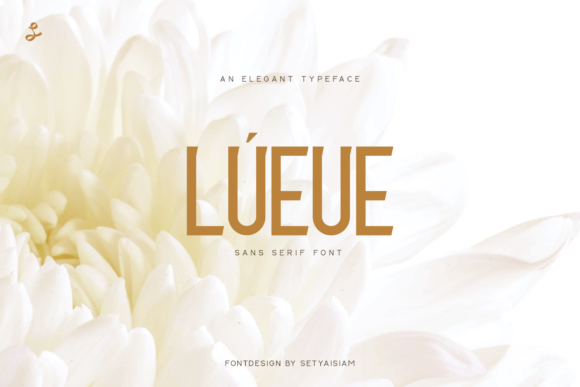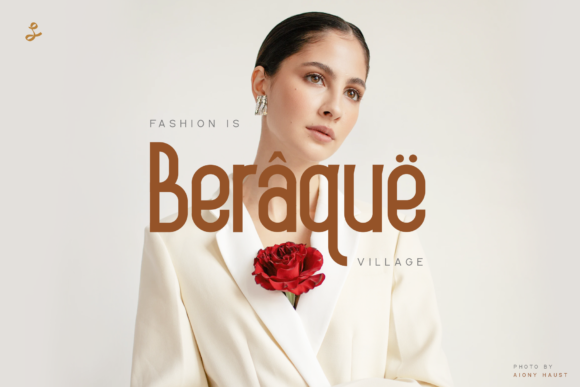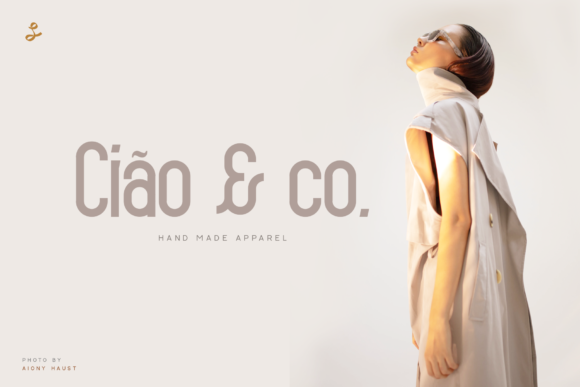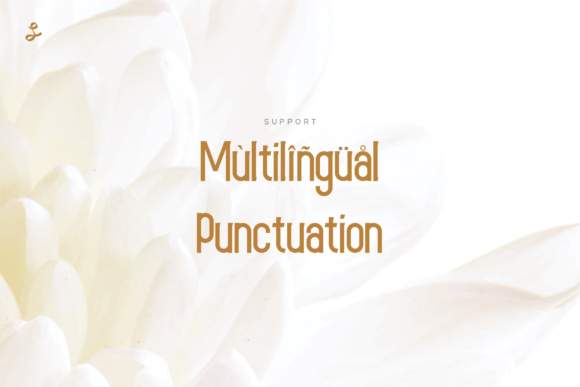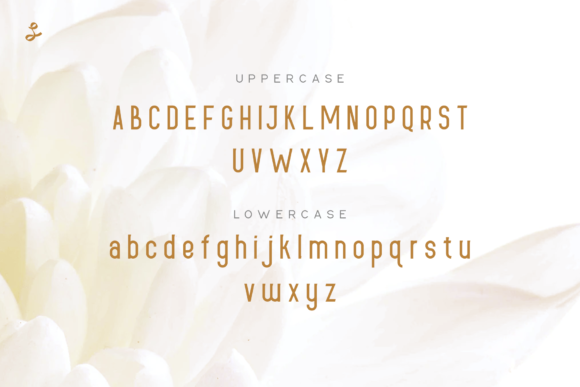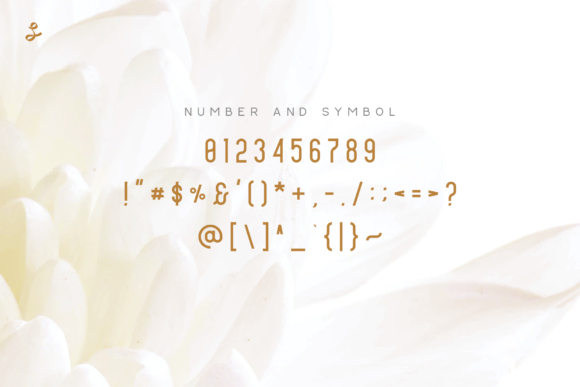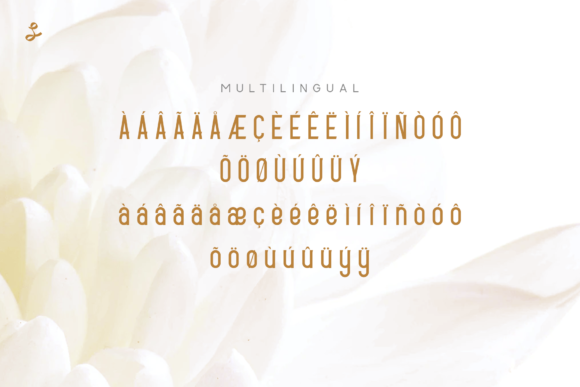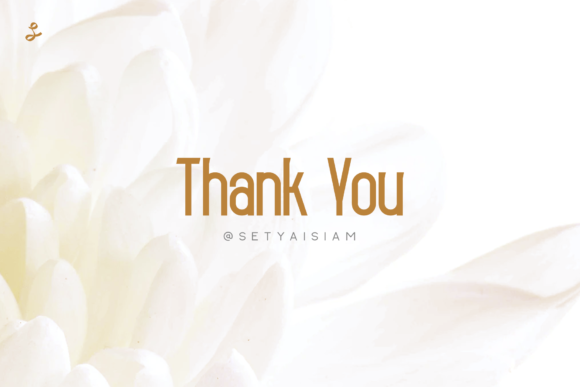
Lueue Font
About Lueue Font
Introducing “Lueue,” a minimal and neat handwritten font that exudes simplicity and elegance. With its clean and uncluttered style, “Lueue” is incredibly versatile, making it a perfect match for a vast array of projects. Add it to your creative ideas, and you’ll notice how it effortlessly elevates them to stand out with its understated beauty.
“Lueue” embraces a minimalistic design with carefully crafted letterforms that embody a sense of order and neatness. Its streamlined appearance gives your designs a polished and refined look, making it an ideal choice for various creative ventures.
Imagine using “Lueue” to create clean and sophisticated branding materials, minimalistic wedding invitations, or sleek social media graphics.
In branding and logo design, “Lueue” becomes a symbol of modernity and simplicity. Its versatility allows you to convey your brand’s essence in an elegant and clean manner.
When applied to wedding invitations, “Lueue” provides a contemporary and refined touch, setting the stage for a stylish celebration.
For social media graphics, “Lueue” adds a touch of sophistication without overwhelming the overall message, making your content both visually appealing and easy to read.
With its neat and minimalist appeal, “Lueue” becomes an essential tool for a broad range of projects.
In conclusion, “Lueue” is more than just a font; it’s a statement of elegance and simplicity. With its minimal and neat style, “Lueue” becomes an invaluable asset for all your design projects. Embrace the clean allure of “Lueue” and discover how it effortlessly enhances your creative ideas. Let your imagination flourish in the minimal and refined embrace of “Lueue,” the handwritten font that defines sophistication and ensures your designs stand out with a timeless allure.